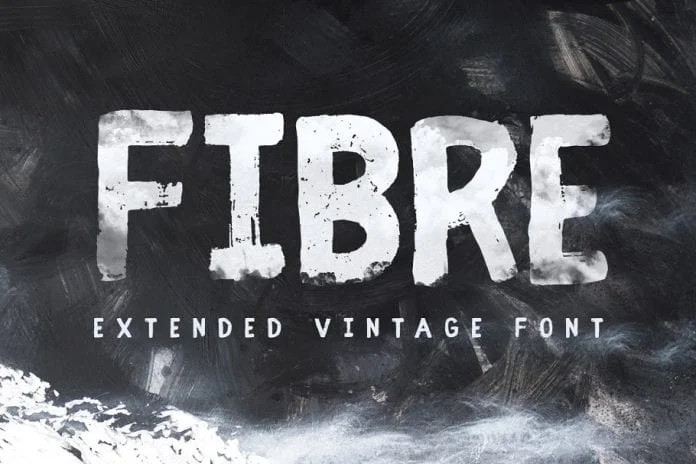
Fibre Extended Vintage Font
Fibre Extended Vintage Font is perfect for retro poster designs, vintage advertising campaigns, classic brand revivals, nostalgic packaging design, historical museum exhibits, antique shop signage, heritage company materials, old-school barbershop logos, traditional craft branding, and authentic period-themed promotions.
Fibre Extended Vintage Font is exciting because it masterfully recreates the golden era of industrial typography through extended letterforms that evoke classic manufacturing heritage and timeless craftsmanship with authentic vintage appeal. This historically designed typeface combines traditional industrial aesthetics with contemporary functionality, making it perfect for brands that want to communicate heritage quality, time-tested reliability, and authentic vintage character that honors traditional manufacturing excellence.
The Fibre Extended Vintage Font family includes wide vintage weights with industrial-inspired character styling, featuring classic manufacturing design elements and heritage decorative variations. The font showcases period design details, factory-refined proportions, and authentic industrial characteristics that create a comprehensive typographic system for vintage and heritage brand applications.
The industrial sophistication of Fibre Extended Vintage Font makes it an invaluable tool for heritage manufacturers, vintage retailers, and traditional service providers that need typography capable of communicating manufacturing excellence and vintage authenticity. The font's robust character helps establish connections with audiences appreciating traditional craftsmanship, heritage quality, and authentic industrial values that embody time-tested manufacturing principles.
Heritage brands, vintage manufacturers, and traditional craft businesses consistently choose Fibre Extended Vintage Font for its ability to convey industrial heritage and vintage manufacturing sophistication through typography. The font excels in applications where establishing heritage credibility and vintage appeal are essential to brand positioning, making it particularly effective for traditional manufacturing, heritage products, and vintage lifestyle brands targeting quality-conscious consumers.
This font's comprehensive character set includes industrial-inspired letterforms, heritage numerals, vintage punctuation marks, and manufacturing symbols that support authentic industrial typography composition. The consistent heritage styling maintains the vintage manufacturing theme throughout all characters while ensuring professional readability across all heritage and industrial design projects requiring Fibre Extended Vintage Font Free Download functionality.